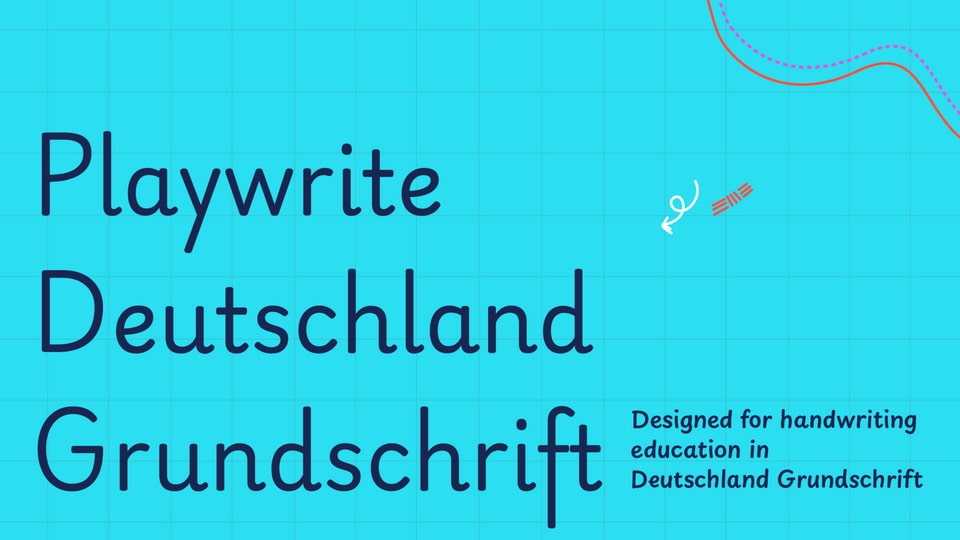
Playwrite Deutschland Font › Fontesk – Download Grátis
Download Playwrite Deutschland font, a typeface that allows the creation of primary school cursive fonts. Emphasis is on the flow of connected writing, letter recognition and legibility, and not the exact imitation of individual letters.
Designer: TypeTogether